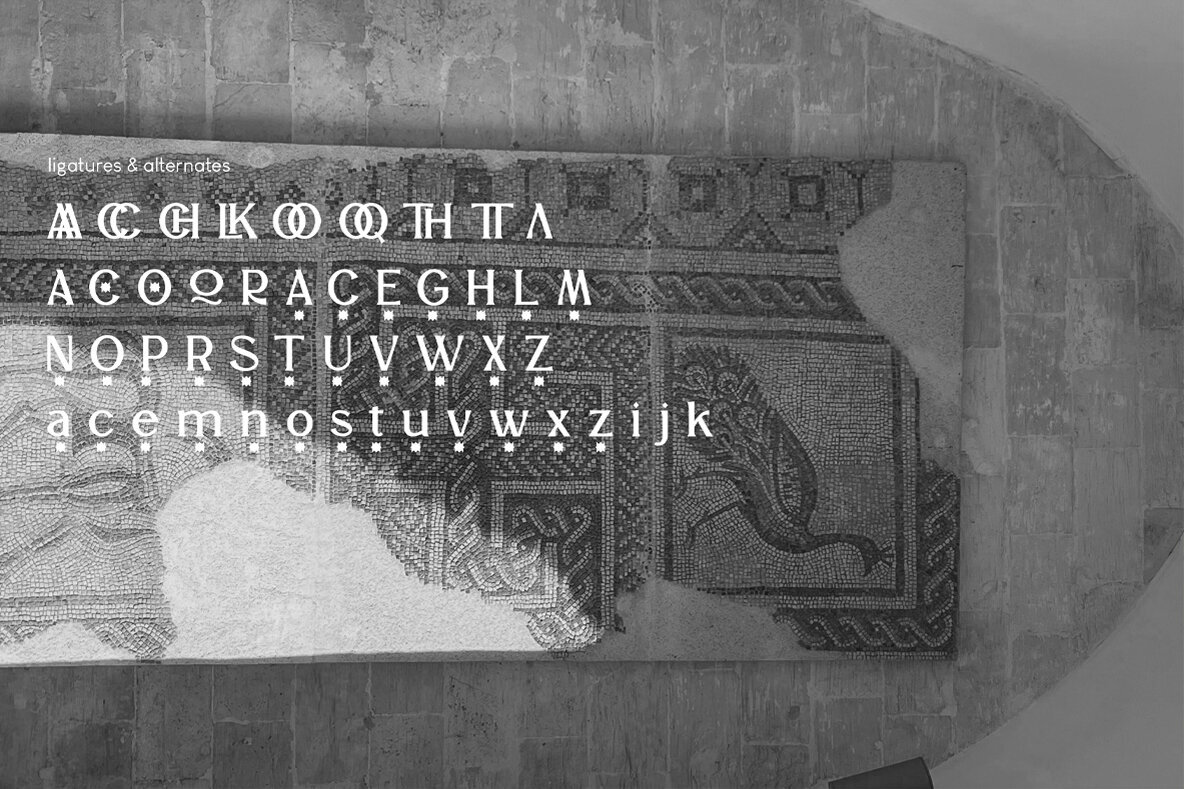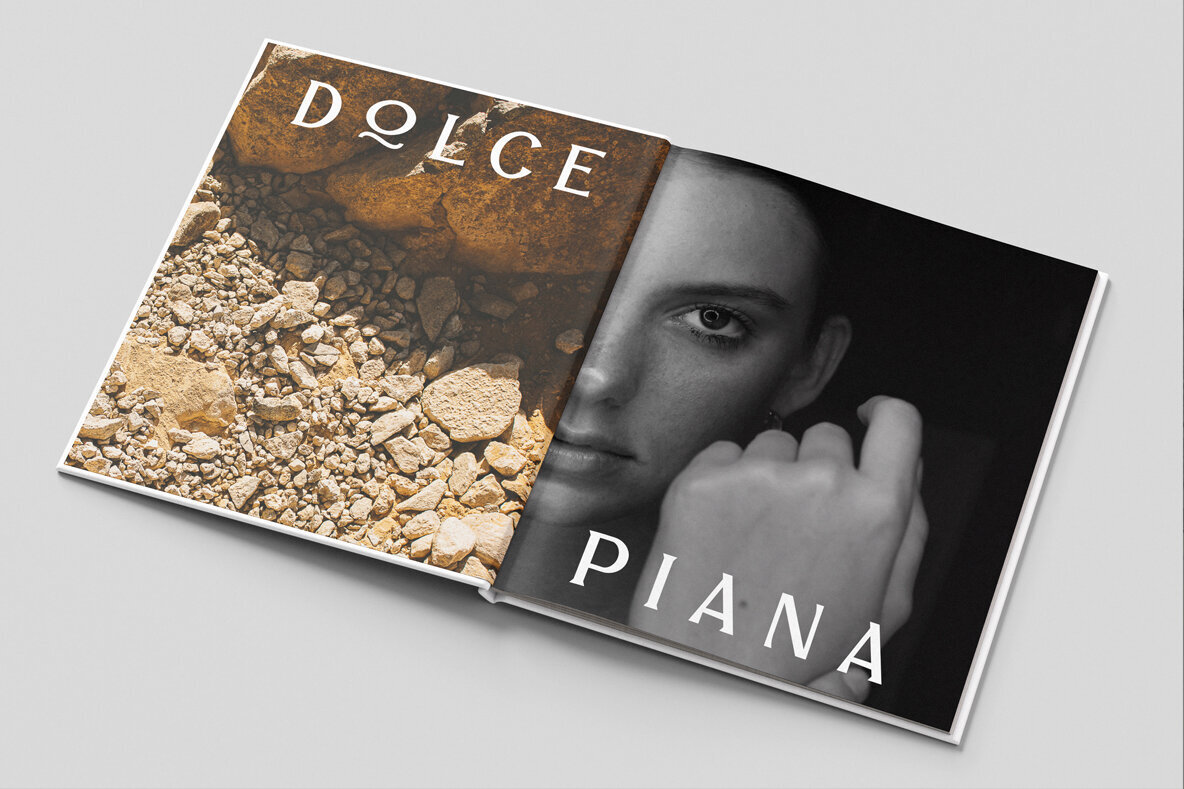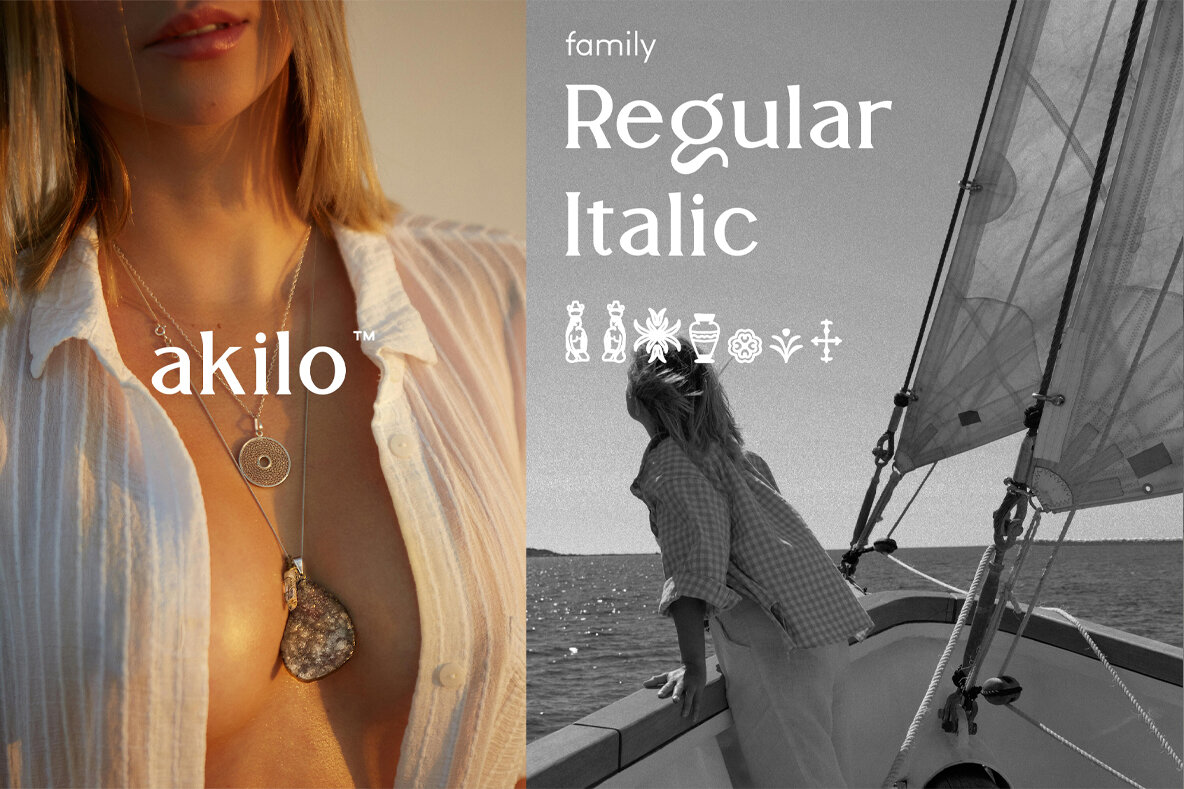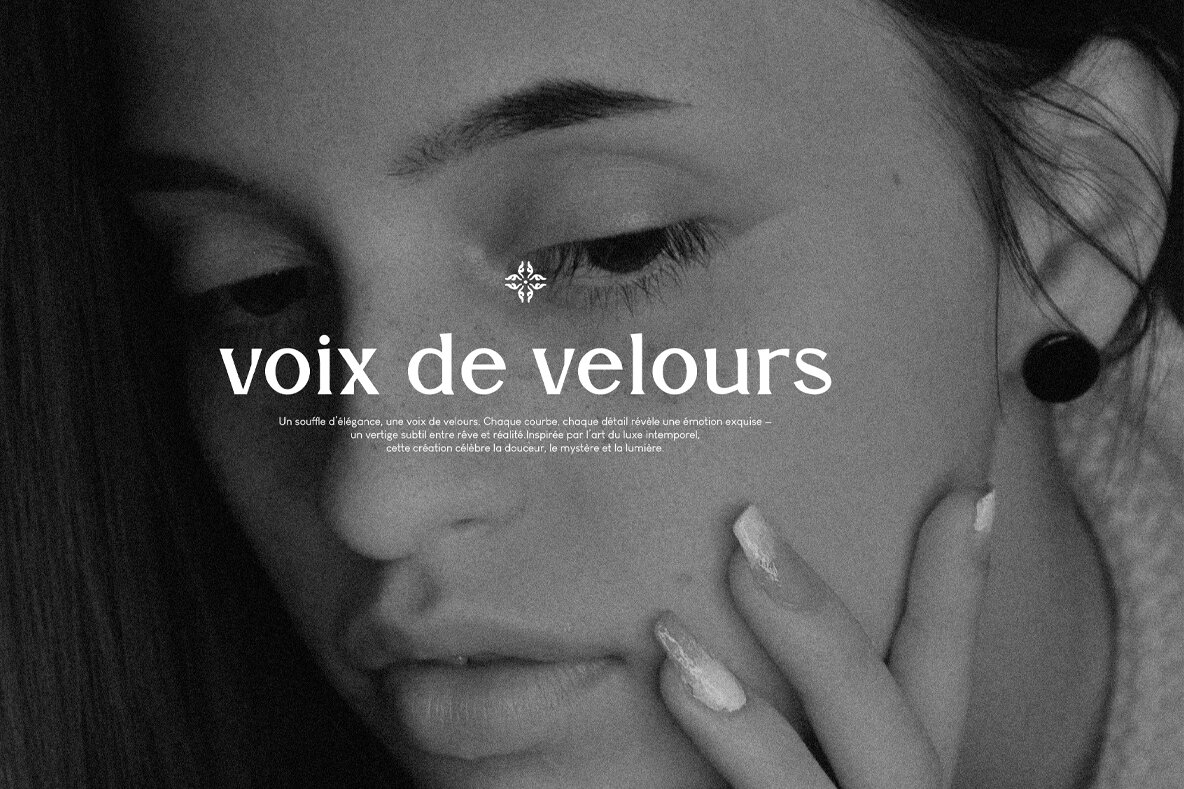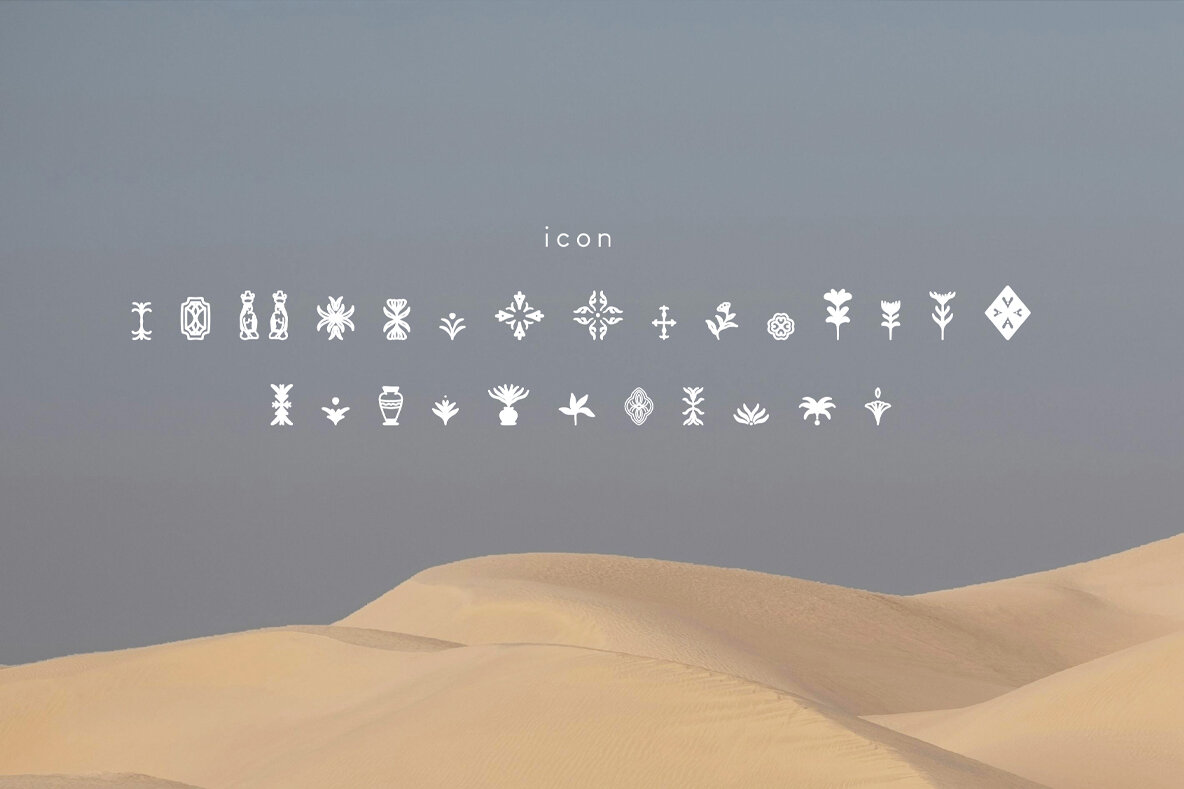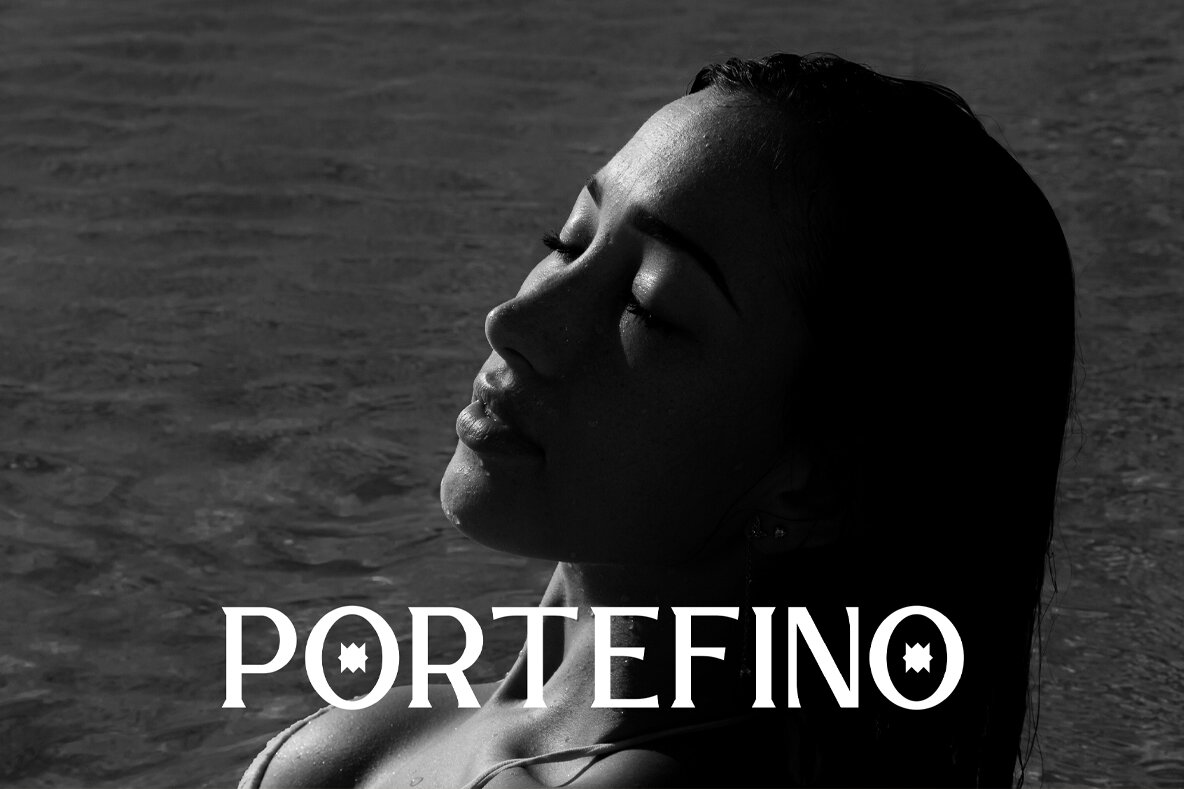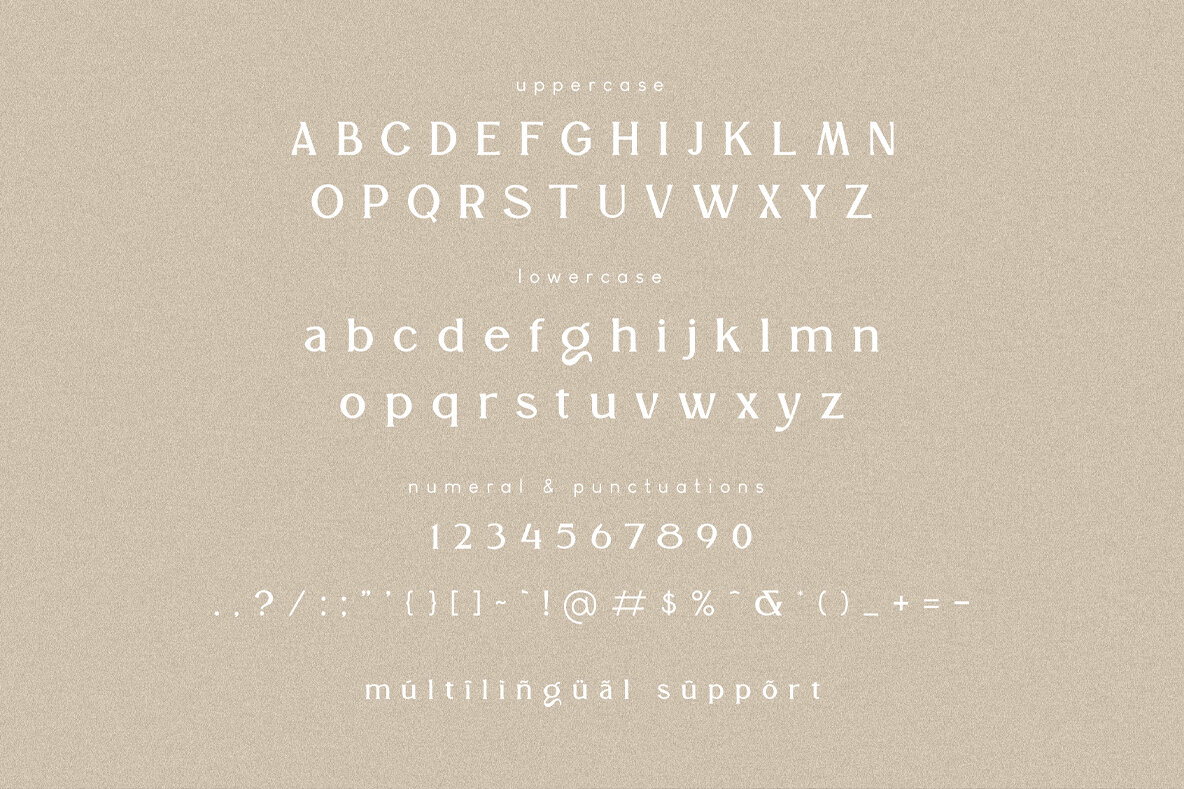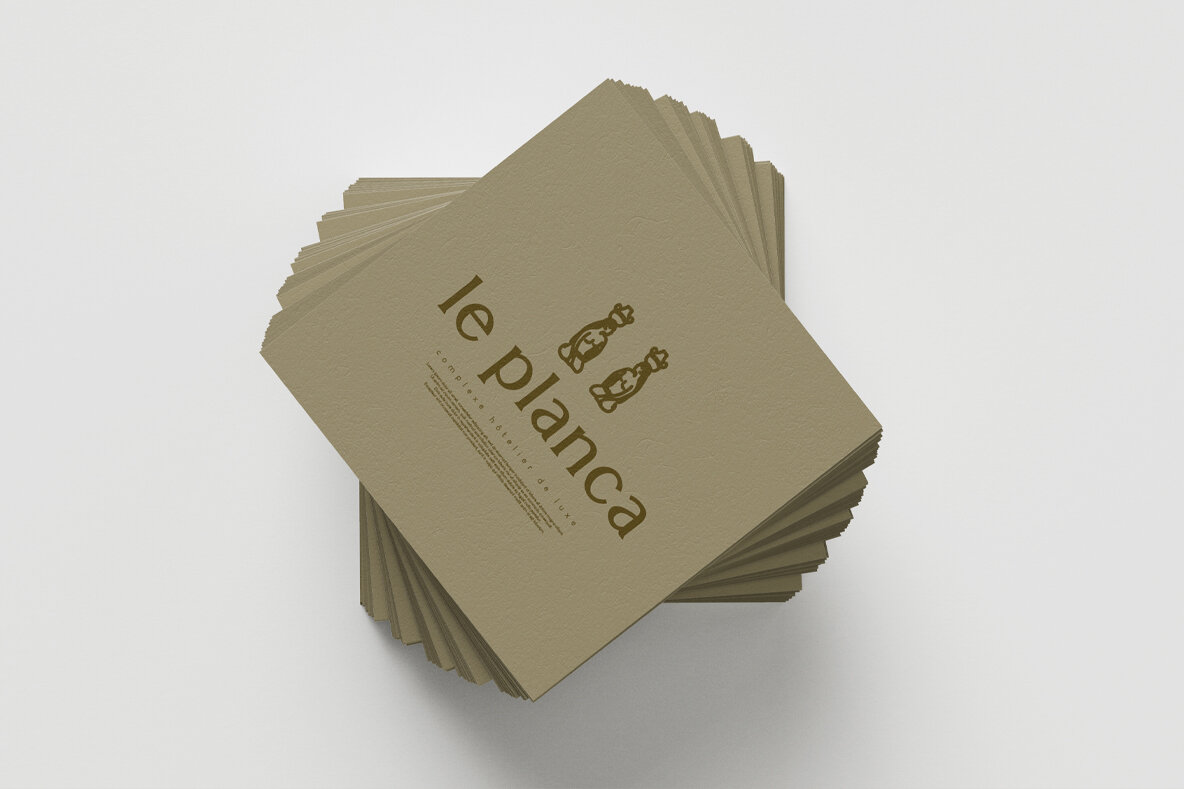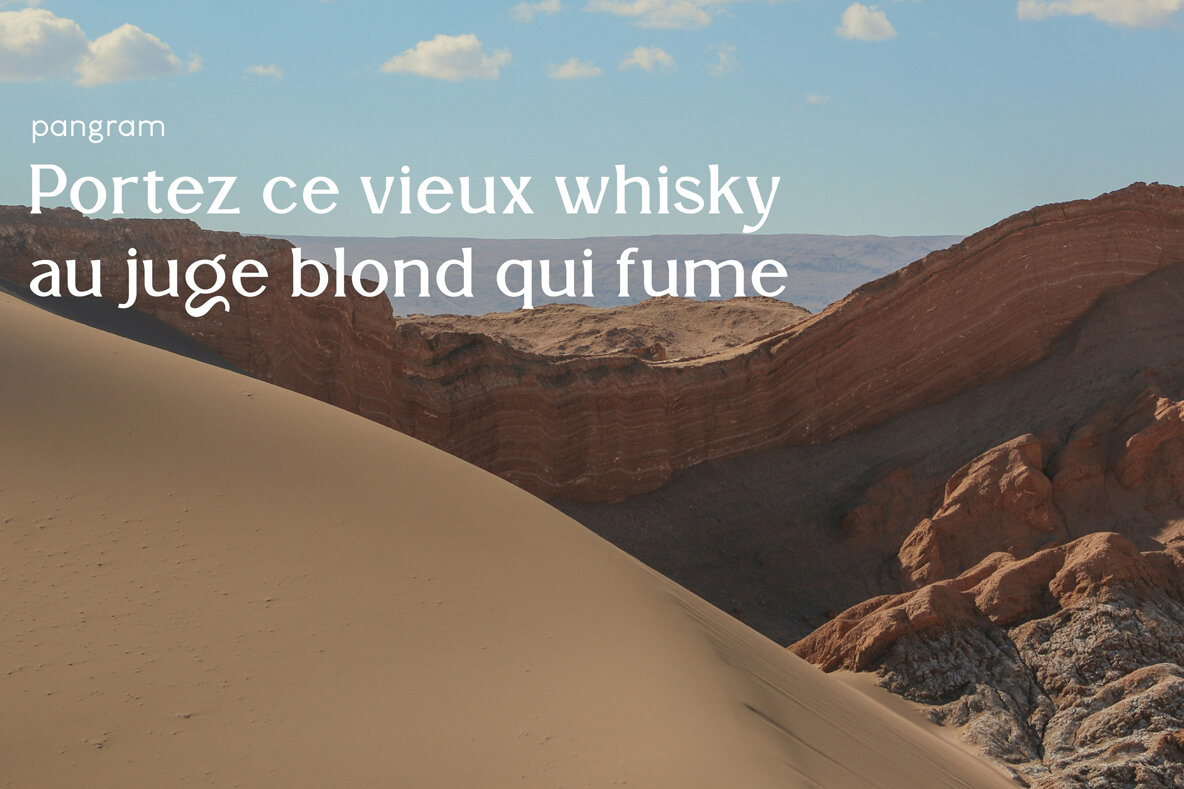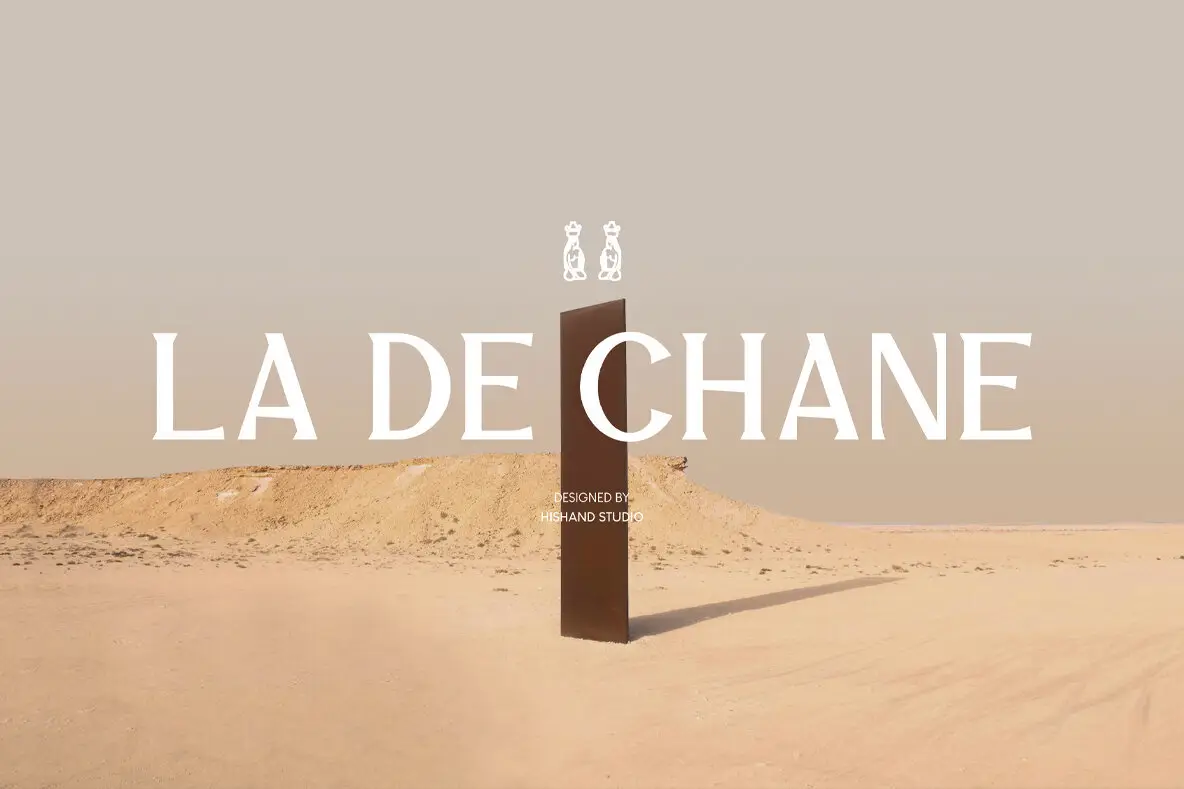
LA DE CHANE Font
LA DE CHANE
LA DE CHANE Italic
LA DE CHANE Icon
LA DE CHANE is a distinguished serif typeface that seamlessly marries classic sophistication with contemporary design. Featuring high-contrast strokes, refined curves, and precise serifs, it evokes a sense of luxury and assurance in every application. Perfectly suited for fashion labels, upscale branding, editorials, and premium packaging, LA DE CHANE demands attention with understated elegance. Each letterform is meticulously designed to ensure style and clarity, making it an ideal choice for headlines and elegant logotypes. Features:LA DE CHANE: Timeless Elegance in Serif Design